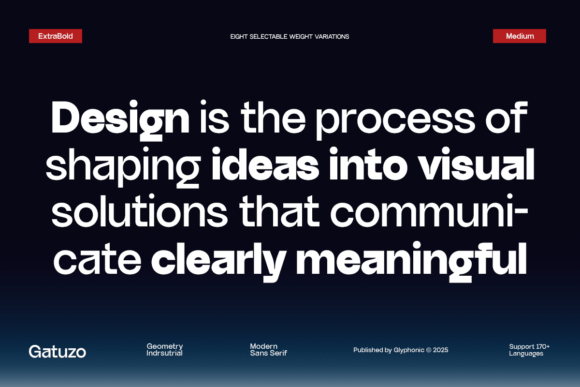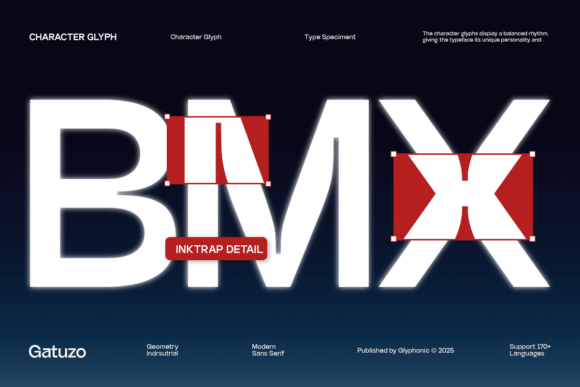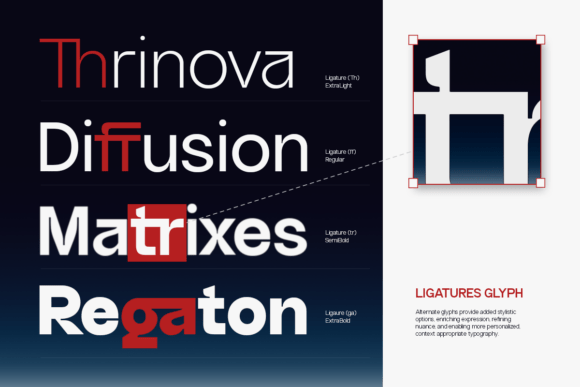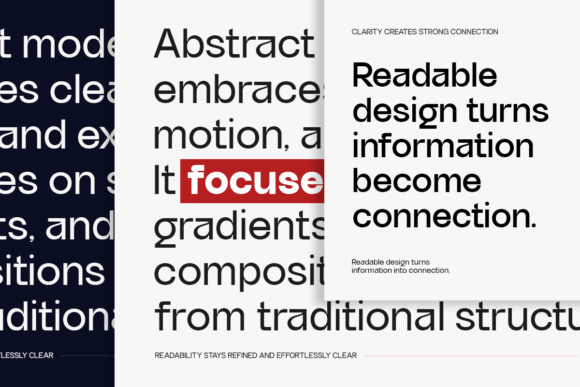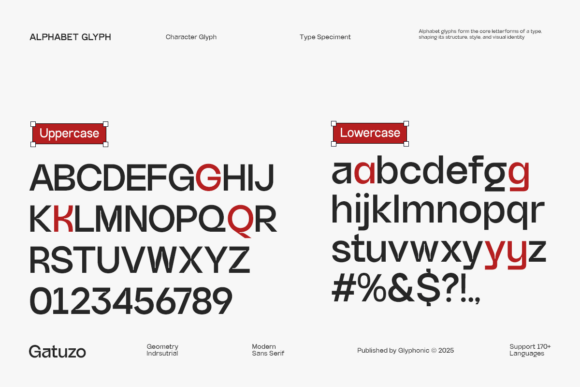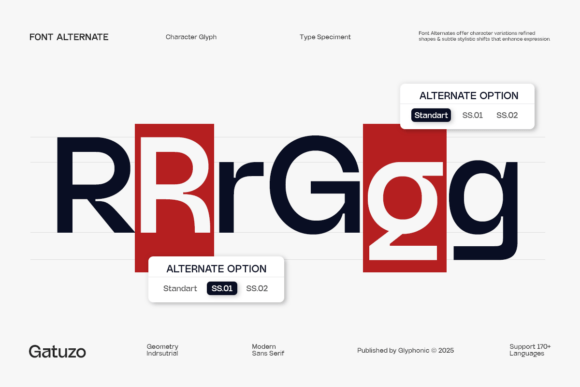
I still remember the frustration of working on a project, hours spent crafting the perfect design, only to be held back by one crucial element: the font. My client wanted something modern, yet refined; bold, yet elegant. I scoured the internet, tried countless fonts, but nothing seemed to fit the bill. That was until I stumbled upon Gatuzo – Geometric Sans. ✨
First Impressions: A Love Affair with Gatuzo
Gatuzo is more than just a font; it’s a design statement. With its strong geometric foundations, clean shapes, and confident strokes, it brings a level of clarity and balance that’s hard to find in the world of sans serif typefaces. Whether you’re working on branding, editorial layouts, tech-inspired projects, or impactful visual identities, Gatuzo is a versatile choice that delivers.
- ✨ Modern Versatility: Gatuzo performs seamlessly across both digital and print applications, making it a go-to for any project.
- ✅ Clean and Refined: Its geometric appeal is undeniable, offering a bold yet sophisticated voice.
- 💡 Adaptability: Well-balanced proportions and precise detailing make Gatuzo highly adaptable without losing its unique charm.
- 🎨 Ease of Use: With PUA encoding included, all special characters and decorative elements are easily accessible.
While Gatuzo is incredibly versatile, there are a few things to keep in mind. ⚠️ Some users might find the geometric strictness a bit limiting for very creative or playful projects. Additionally, while it excels in both digital and print, the font’s impact can be highly dependent on the context and design choices.
The Story Behind Gatuzo: Designer Inspiration
Gatuzo was born out of a desire to merge modern geometric principles with typographic elegance. Its designer sought to create a font that was not only visually striking but also highly functional across various mediums. Inspired by the clean lines and simplicity of geometric shapes, Gatuzo aims to bring a sense of modernity and clarity to any design project.
| Font Name | Gatuzo Font |
| Author | Glyphonic |
| Is Gatuzo easy to read in small sizes? | Absolutely, Gatuzo’s clear design and balanced proportions ensure it remains legible even at smaller sizes, making it ideal for body text and detailed projects. |
With Gatuzo, designers can bring a sense of modern geometric elegance to their projects. Its combination of clarity, balance, and versatility makes it an excellent choice for a wide range of applications. Whether you’re crafting sleek user interfaces, bold headlines, or minimalistic posters, Gatuzo is a reliable and stylish companion in the world of typography.